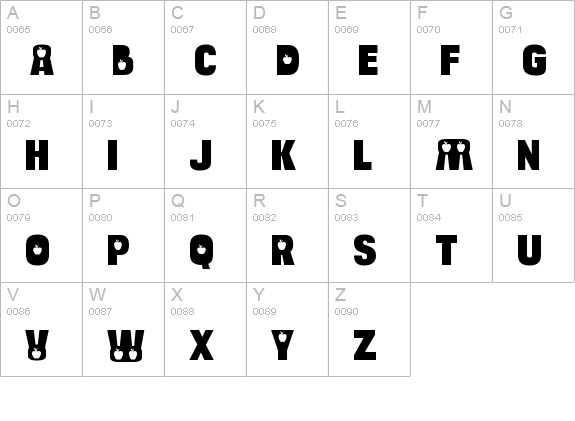
BulltoadApple-Regular Font Details
BulltoadApple-Regular is the standard, neutral variant in the BulltoadApple typeface family \xE2\x80\x94 well suited to general body text, paragraphs, and standard typographic work.
BulltoadApple-Regular font is a charming and versatile typeface that exudes a perfect blend of elegance and playfulness. Its smooth and rounded letterforms give a friendly and inviting look to any design project. Whether you are creating a logo, branding materials, or a fun poster, this font is sure to make your text stand out. The BulltoadApple-Regular font is ideal for a wide range of applications, from children's books to food packaging to social media graphics. Its readability and unique character make it a great choice for both print and digital projects. Best of all, BulltoadApple-Regular font is completely free to download at FontsMarket.com. This means you can add this delightful font to your collection without any cost, making it accessible to designers of all levels. Don't miss out on the opportunity to enhance your designs with the charming BulltoadApple-Regular font today!